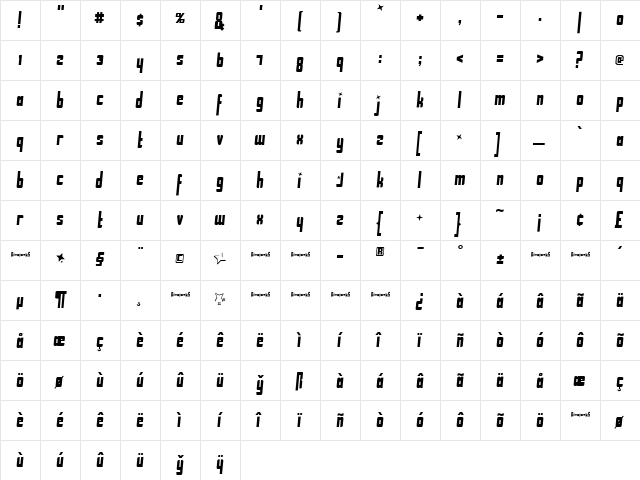
Jacks Regular
Design Context for Jacks Typeface
Jacks takes a measured approach to typography — its balanced proportions and neutral character make it a reliable workhorse for both digital and print work.